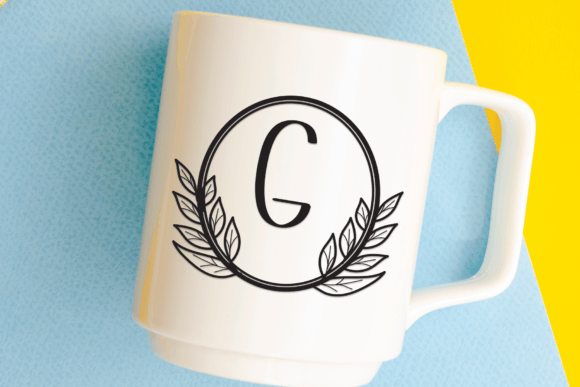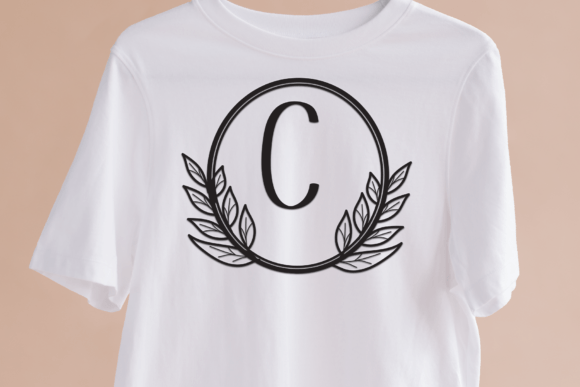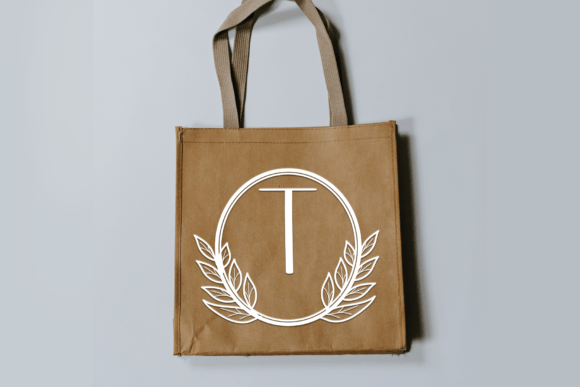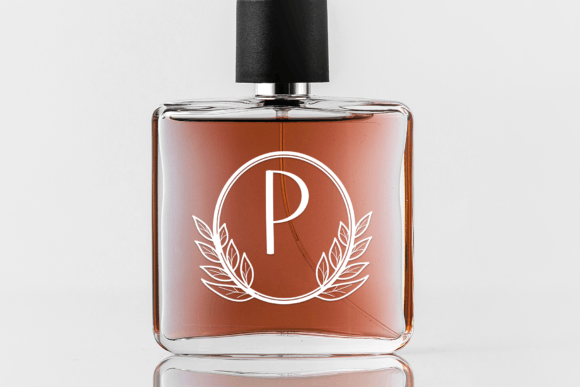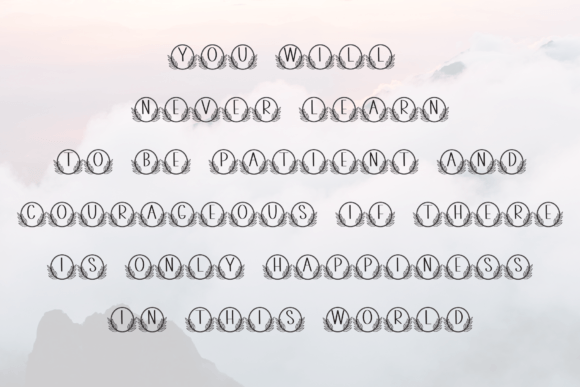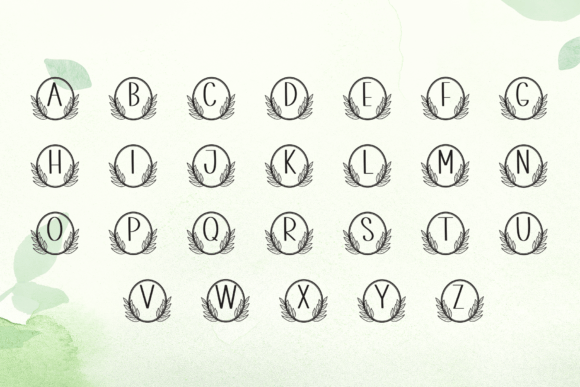
Discover the Elegance of Beautiful Monogram Font
In the world of typography, a beautiful monogram font can elevate your designs, adding a touch of sophistication and elegance. One such font that has been making waves in the design community is the Beautiful Monogram font. This organic and elegant decorative font features lovely ornaments that can instantly enhance any creation. In this article, we’ll dive into the features and benefits of the Beautiful Monogram font, and explore how it can become an incredible asset to your font library.
What is Beautiful Monogram Font?
Beautiful Monogram is a decorative font that boasts an organic and elegant design. Its unique features include lovely ornaments that add a touch of sophistication to any text. The font is perfect for designers and crafters looking to add a personal touch to their creations. Whether you’re working on a logo, branding project, or a craft project, Beautiful Monogram font is sure to impress.
Key Features of Beautiful Monogram Font
- Organic and Elegant Design: The Beautiful Monogram font features an organic and elegant design that is perfect for adding a touch of sophistication to your creations.
- Lovely Ornaments: The font includes lovely ornaments that can be used to enhance any text, making it perfect for decorative projects.
- Versatile: The Beautiful Monogram font can be used for a wide range of projects, from logos and branding to craft projects and more.
- Easily Readable: Despite its decorative nature, the font is easily readable, making it perfect for use in a variety of contexts.
Benefits of Using Beautiful Monogram Font
So, why should you consider adding the Beautiful Monogram font to your library? Here are just a few benefits of using this stunning font:
- Adds Elegance to Your Designs: The Beautiful Monogram font can instantly add a touch of elegance to your designs, making them stand out from the crowd.
- Perfect for Branding and Logo Design: The font’s unique design makes it perfect for use in branding and logo design, helping you to create a lasting impression.
- Enhances Craft Projects: If you’re a crafter, the Beautiful Monogram font can be used to add a personal touch to your projects, making them extra special.
- Compatible with a Range of Projects: The font’s versatility means it can be used for a wide range of projects, from digital designs to print materials.
How to Use Beautiful Monogram Font
Using the Beautiful Monogram font is easy. Here are a few tips to get you started:
- Pair it with Other Fonts: The Beautiful Monogram font can be paired with other fonts to create a unique and interesting design.
- Use it for Headings and Titles: The font’s decorative nature makes it perfect for use in headings and titles, adding a touch of elegance to your designs.
In conclusion, the Beautiful Monogram font is an incredible asset to any font library. Its organic and elegant design, lovely ornaments, and versatility make it perfect for a wide range of projects. Whether you’re a designer or crafter, this font is sure to elevate your creations and add a touch of sophistication. So why not give it a try and see the difference it can make?